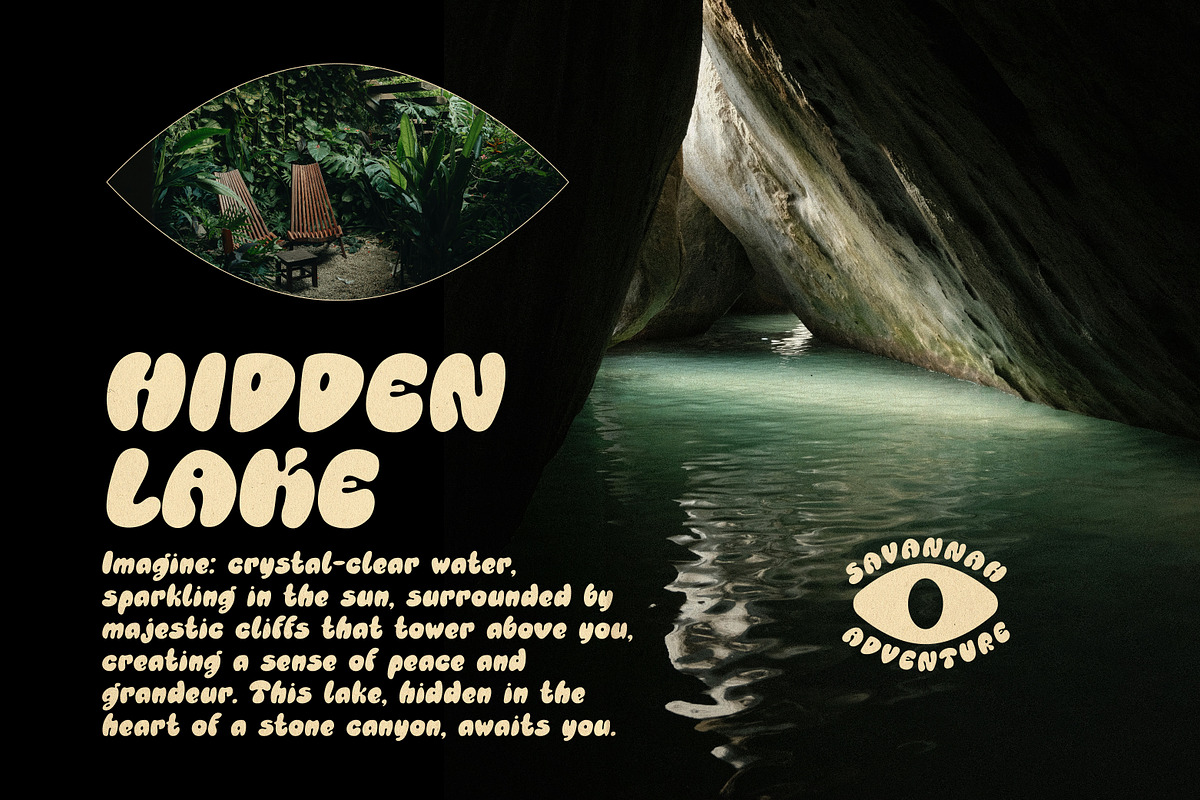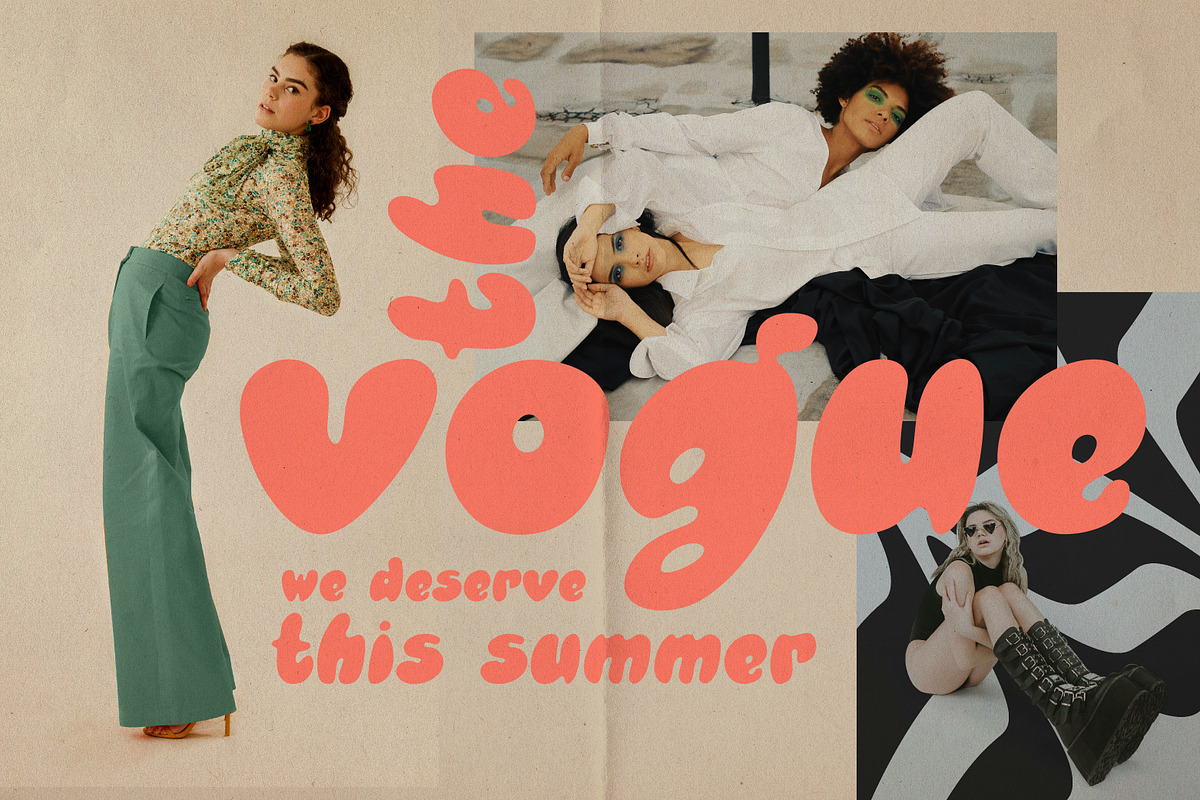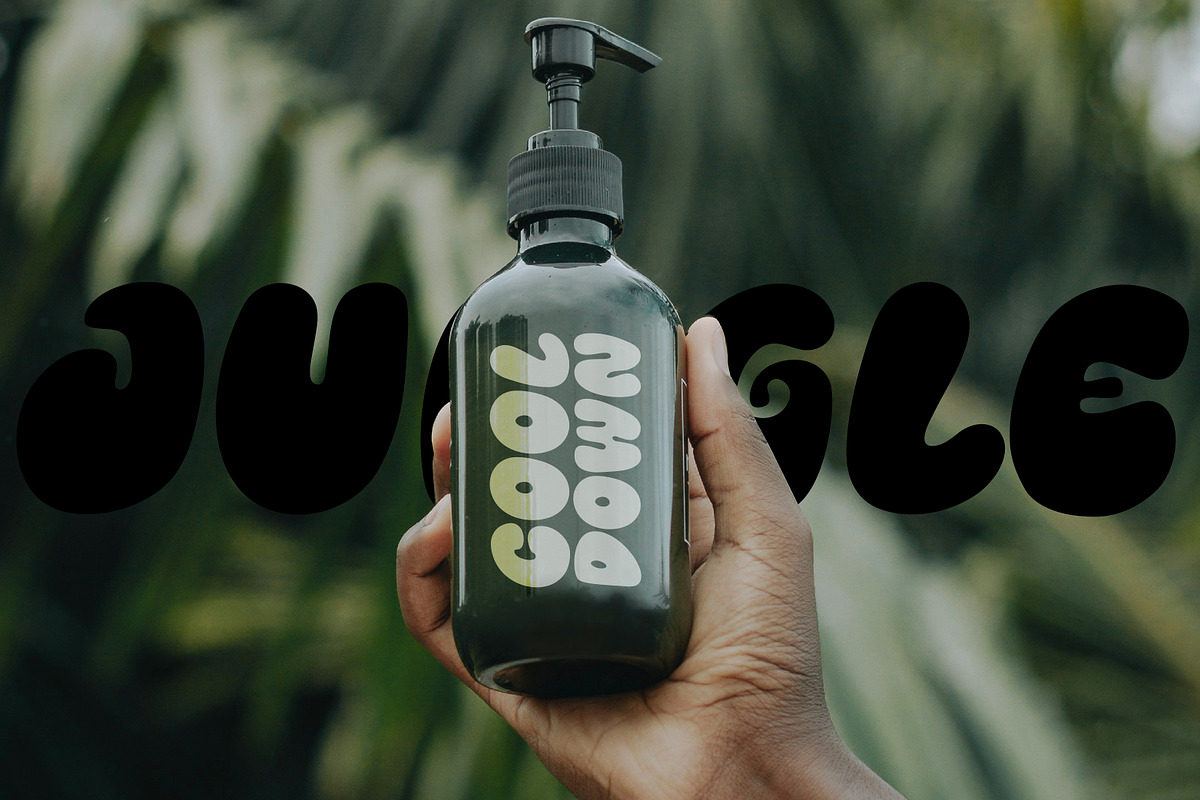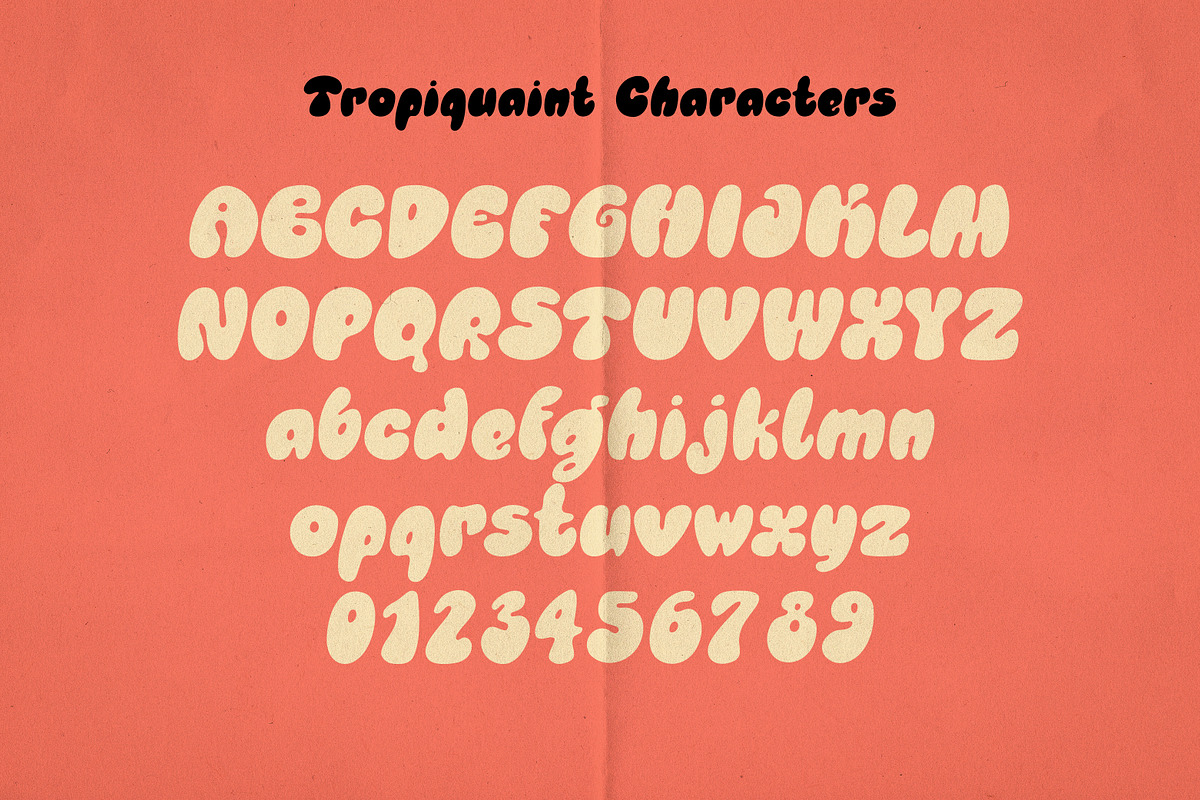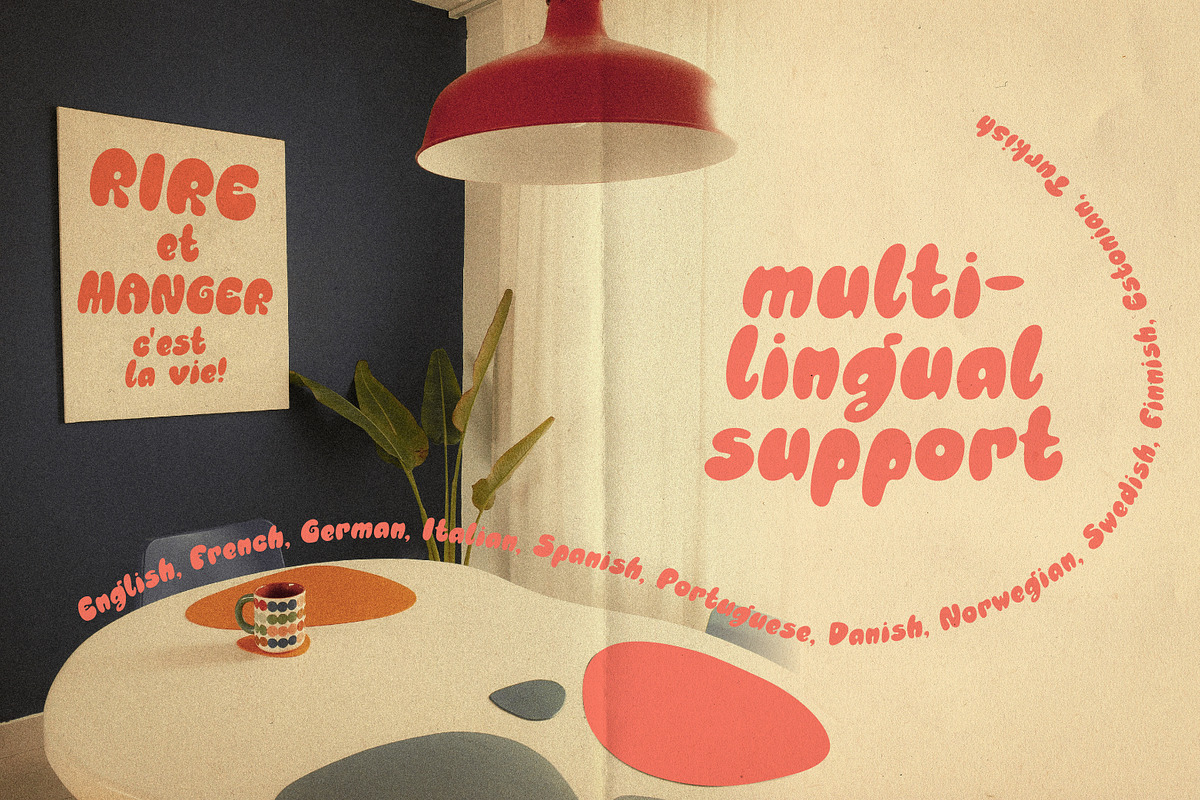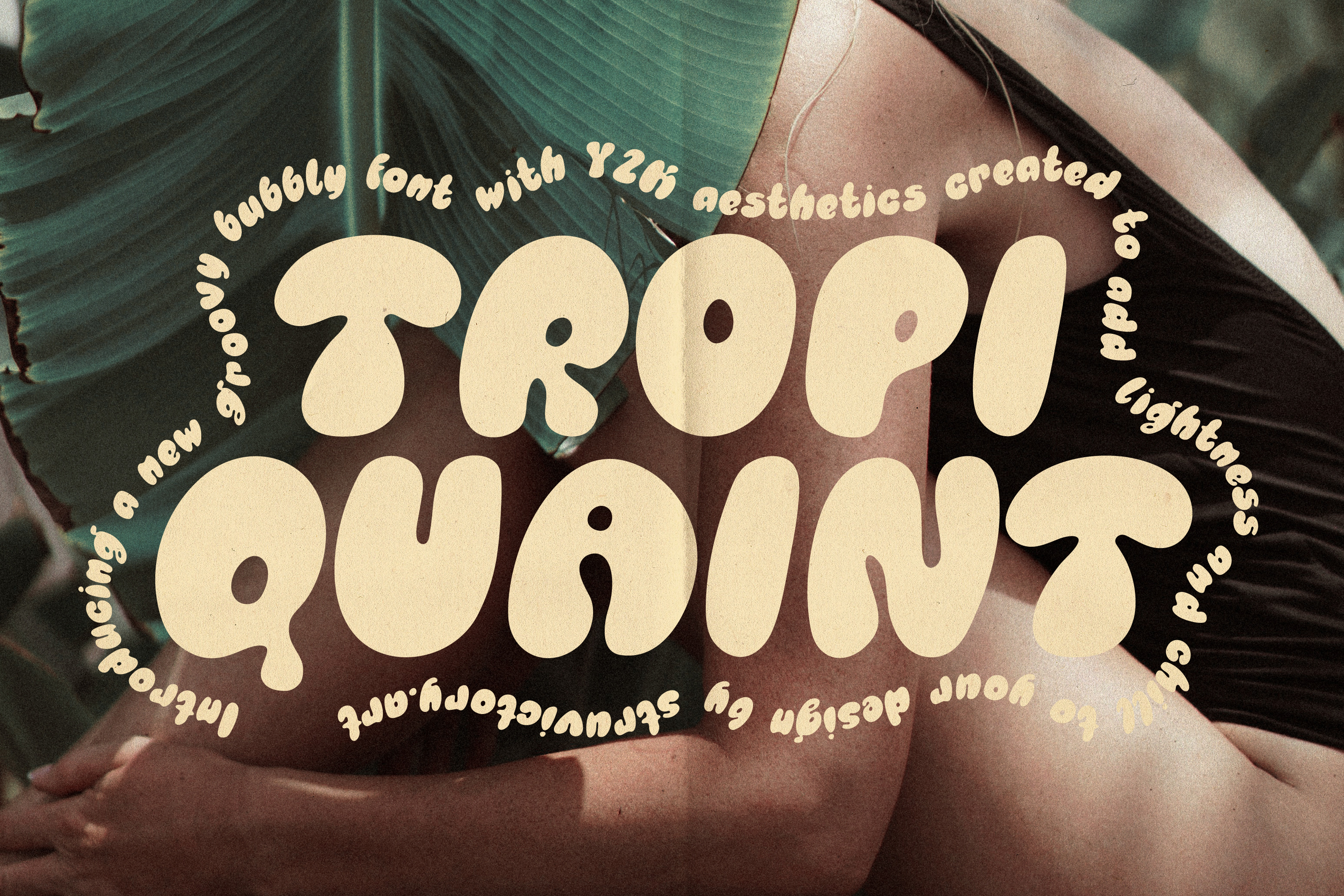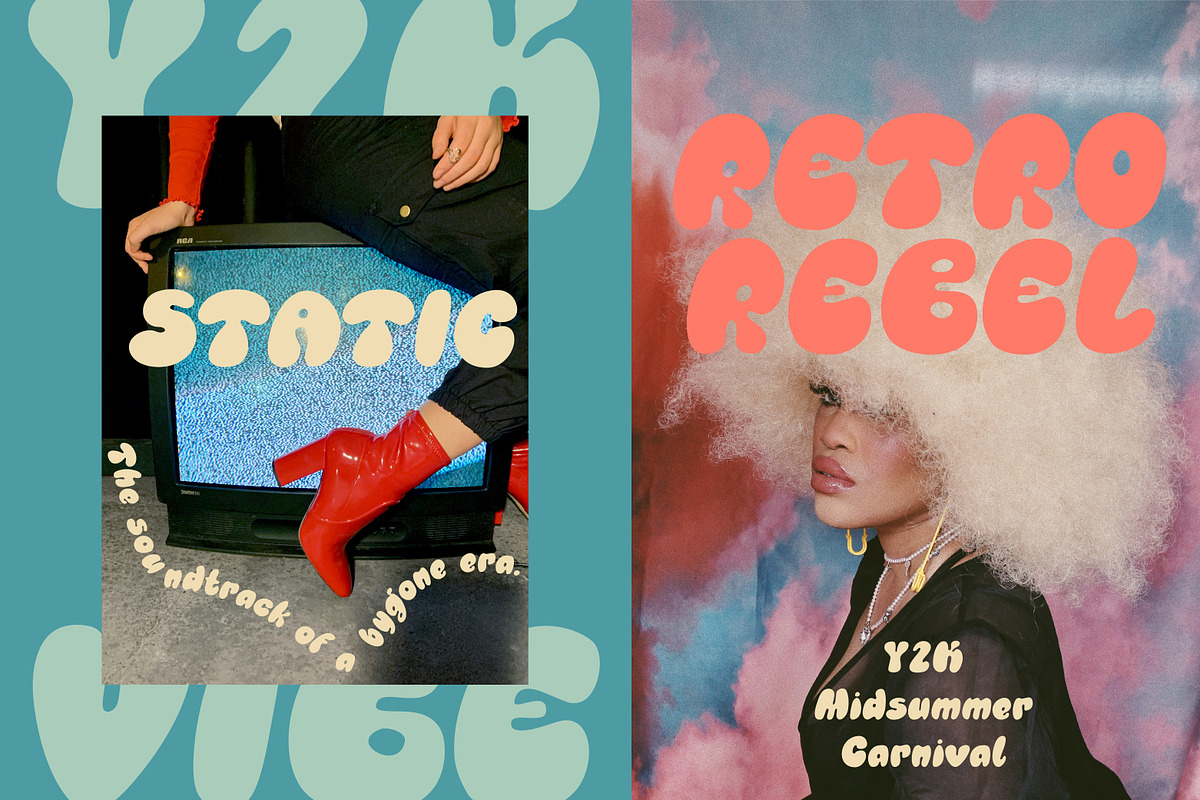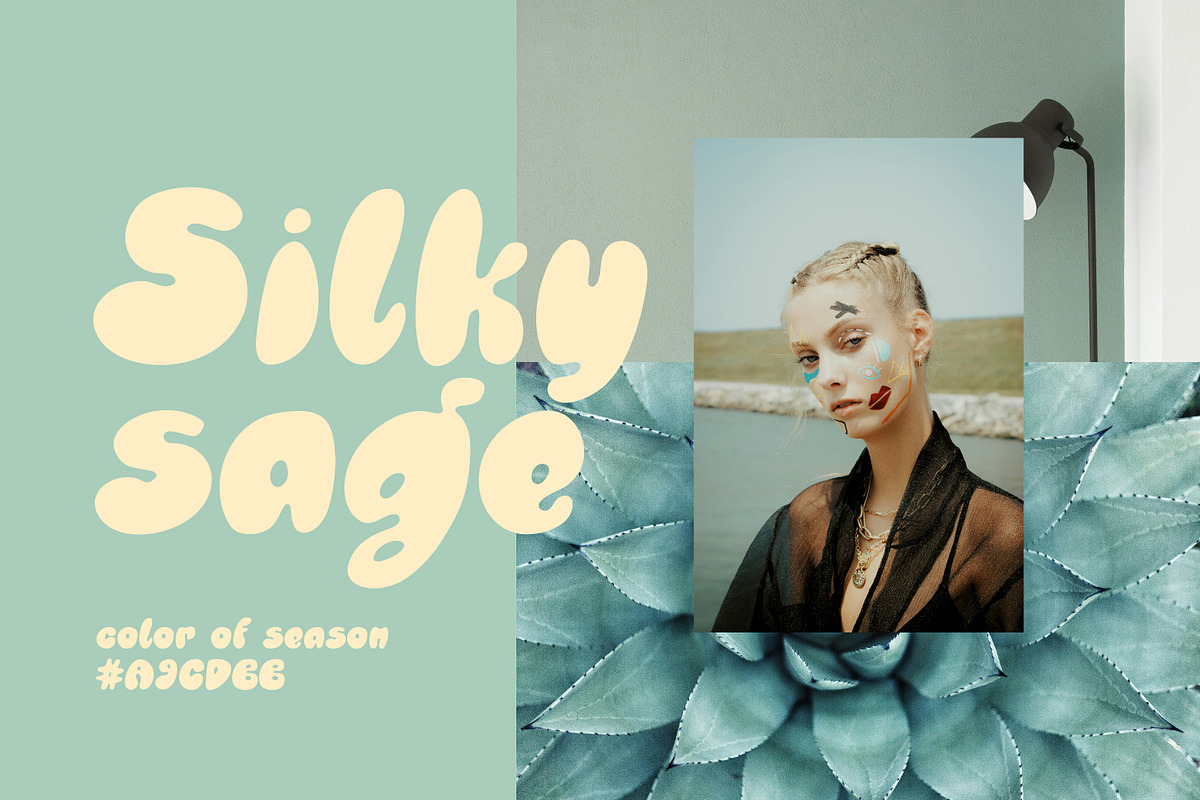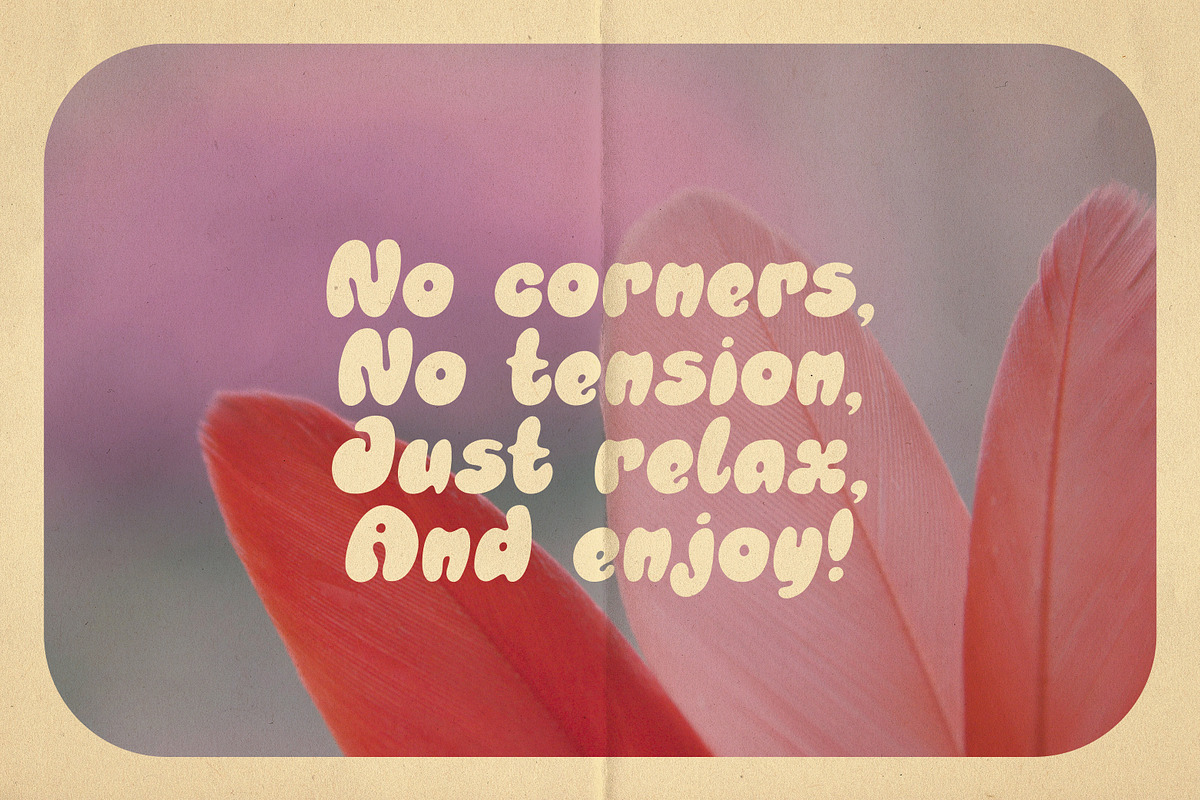
Tropiquaint Bubbly Y2K Groovy Font
Tropiquaint is the bubbly, groovy font you've been waiting for! Its rounded, playful curves bring a touch of y2k nostalgia to any design, while its modern feel keeps it fresh and relevant. Whether you're creating social media graphics, website headers, or quirky merch, Tropiquaint is the perfect font to add a touch of fun and personality.
Tropiquaint supports the most popular latin-based languages, you can check the symbol you need by typing a couple of words in the font preview box.